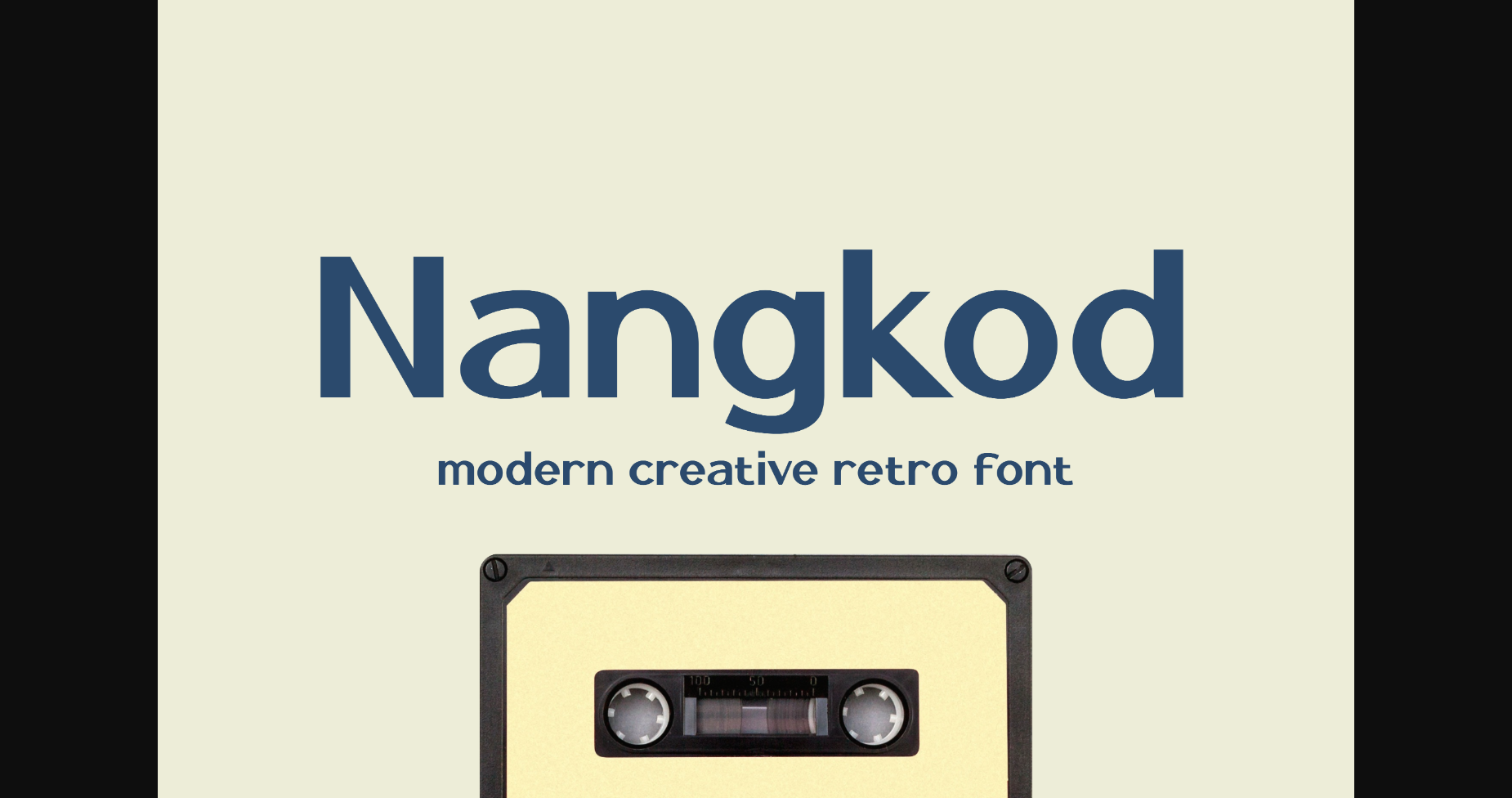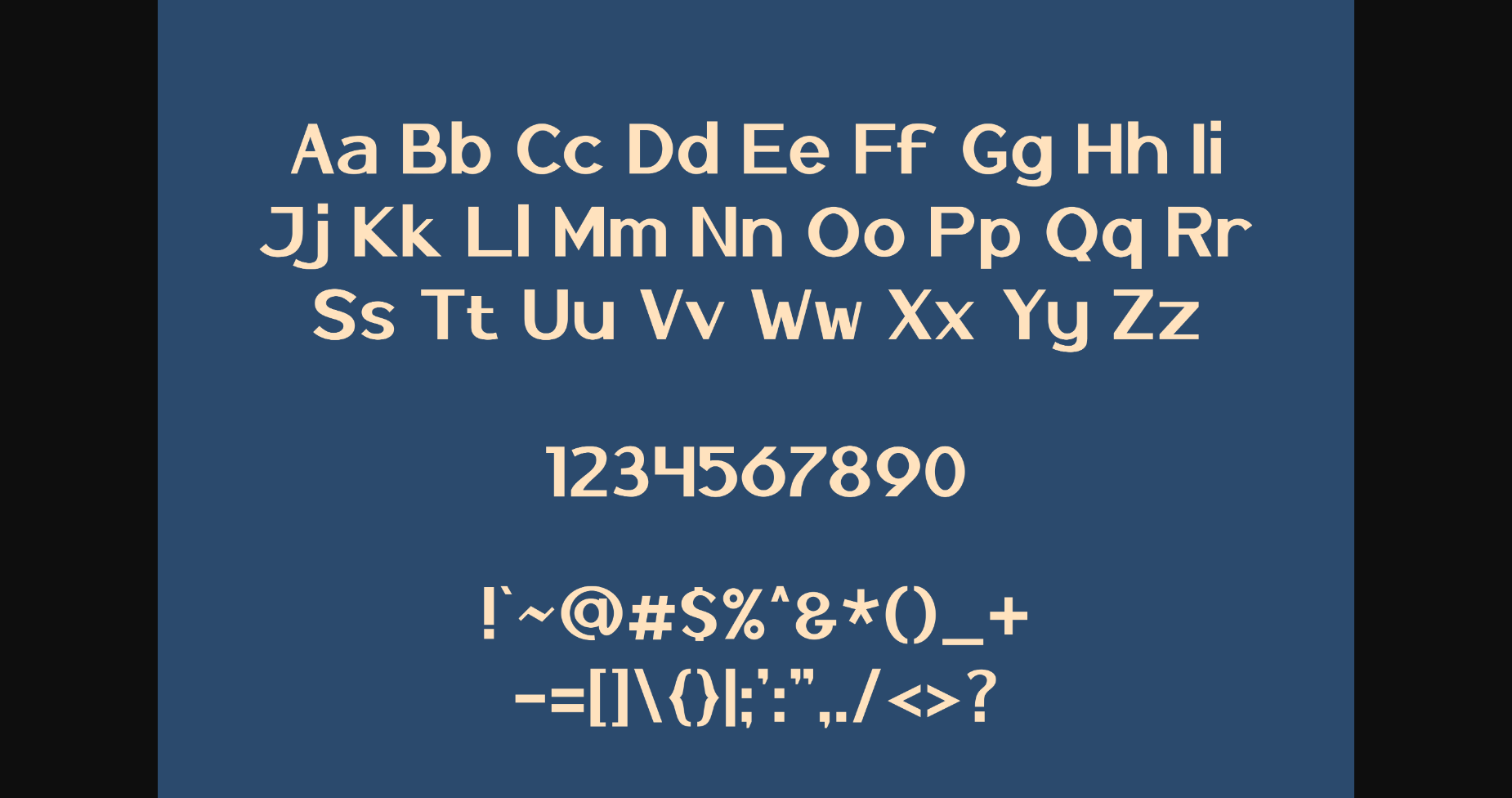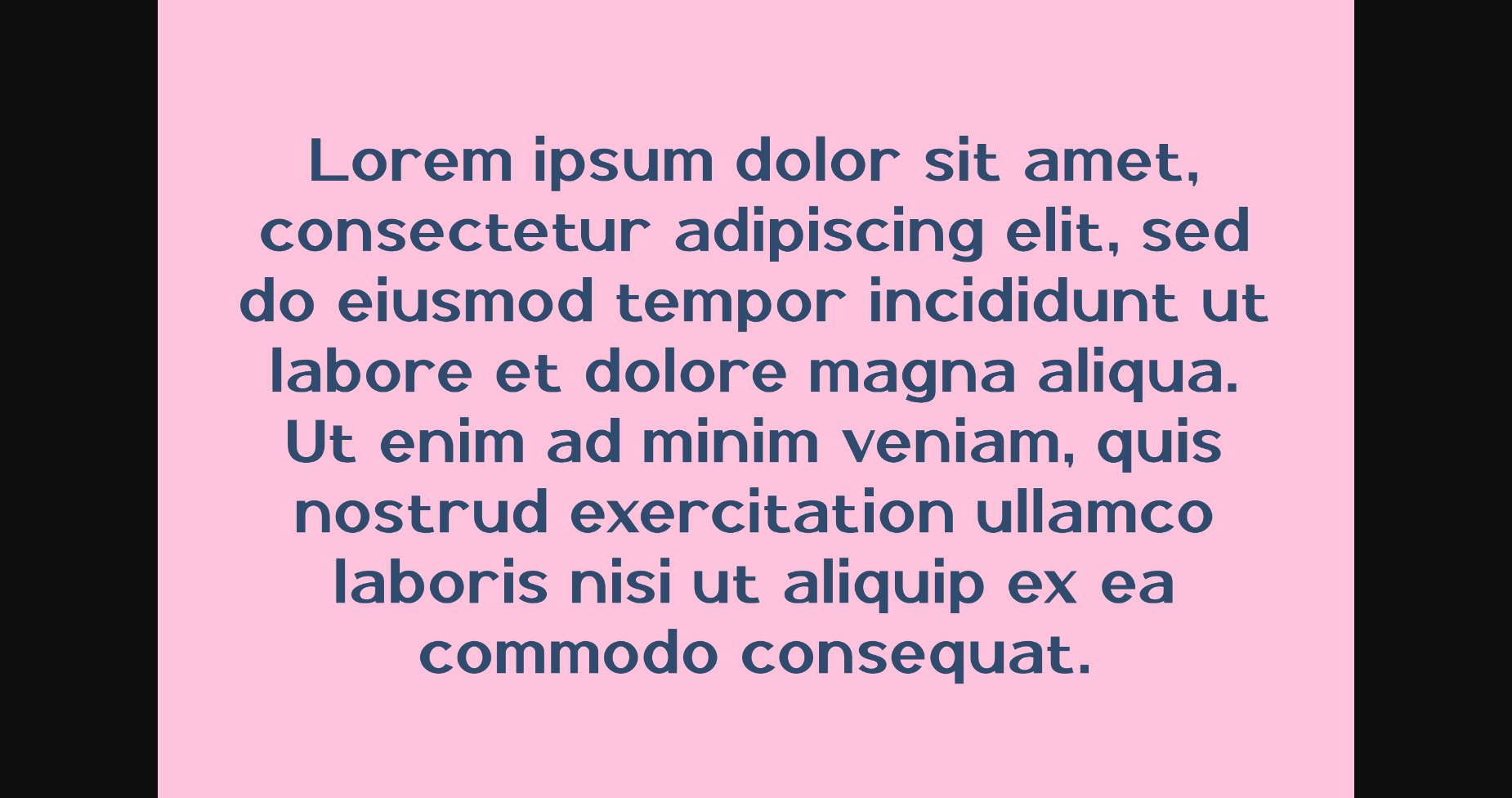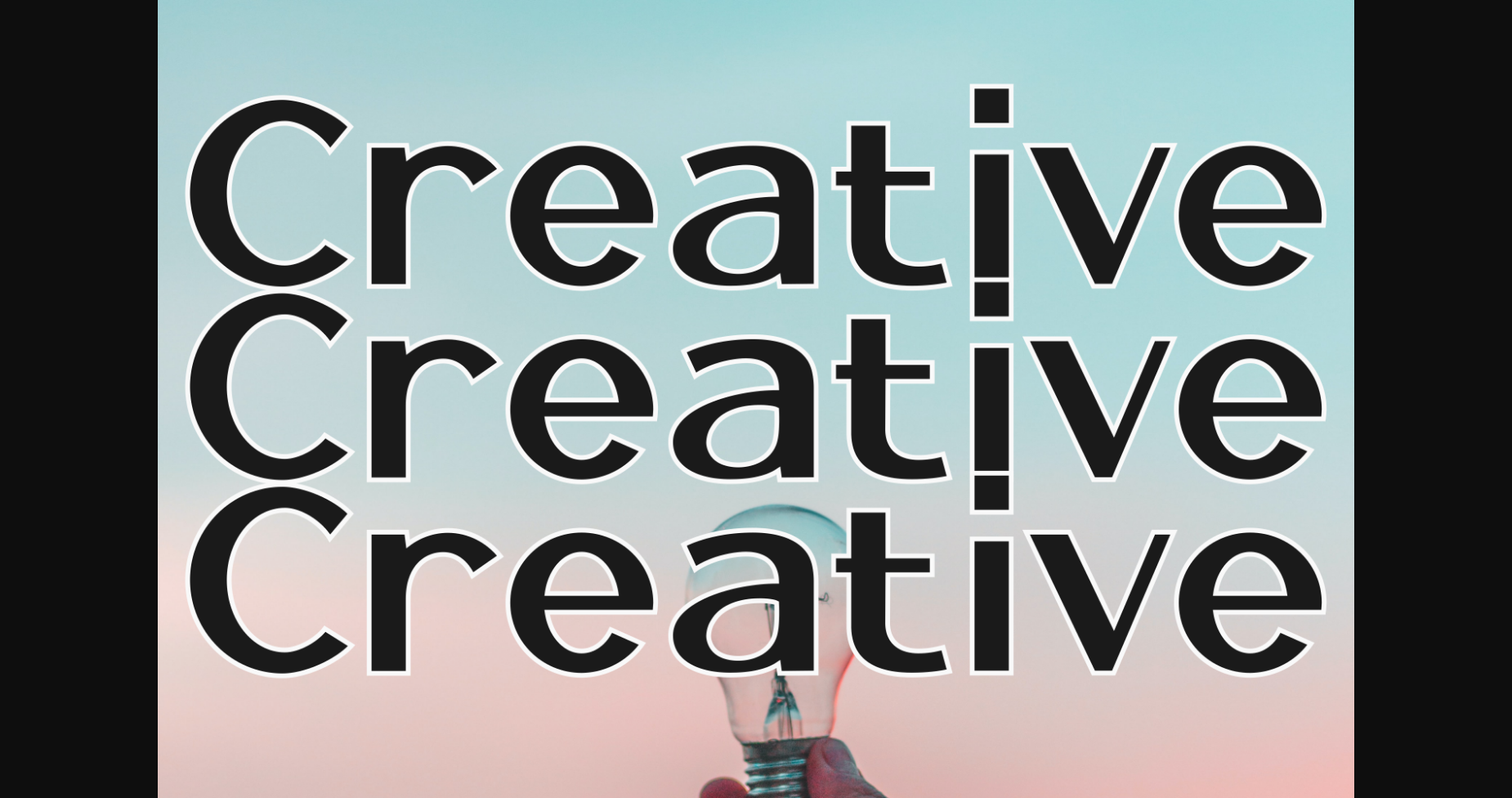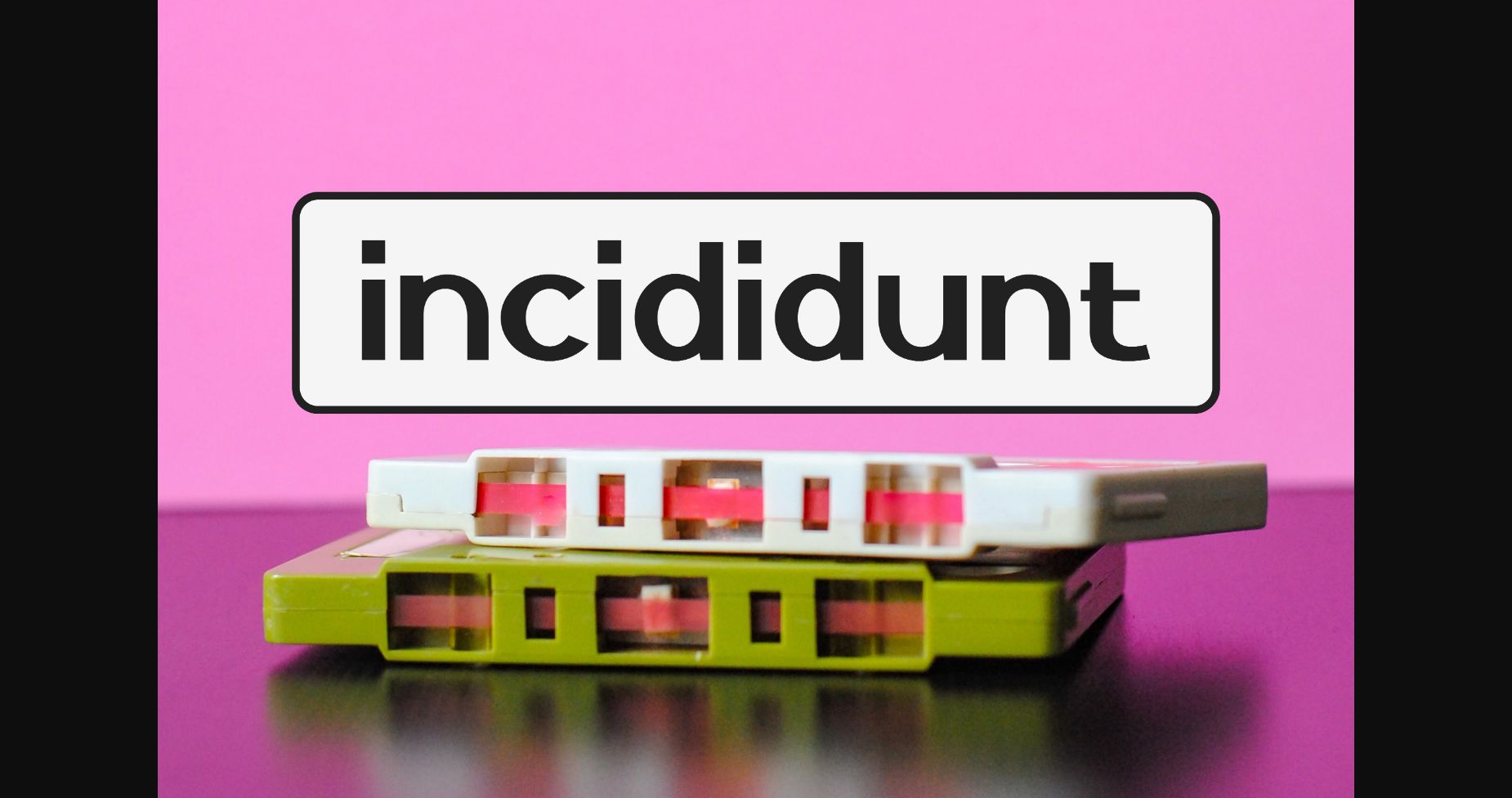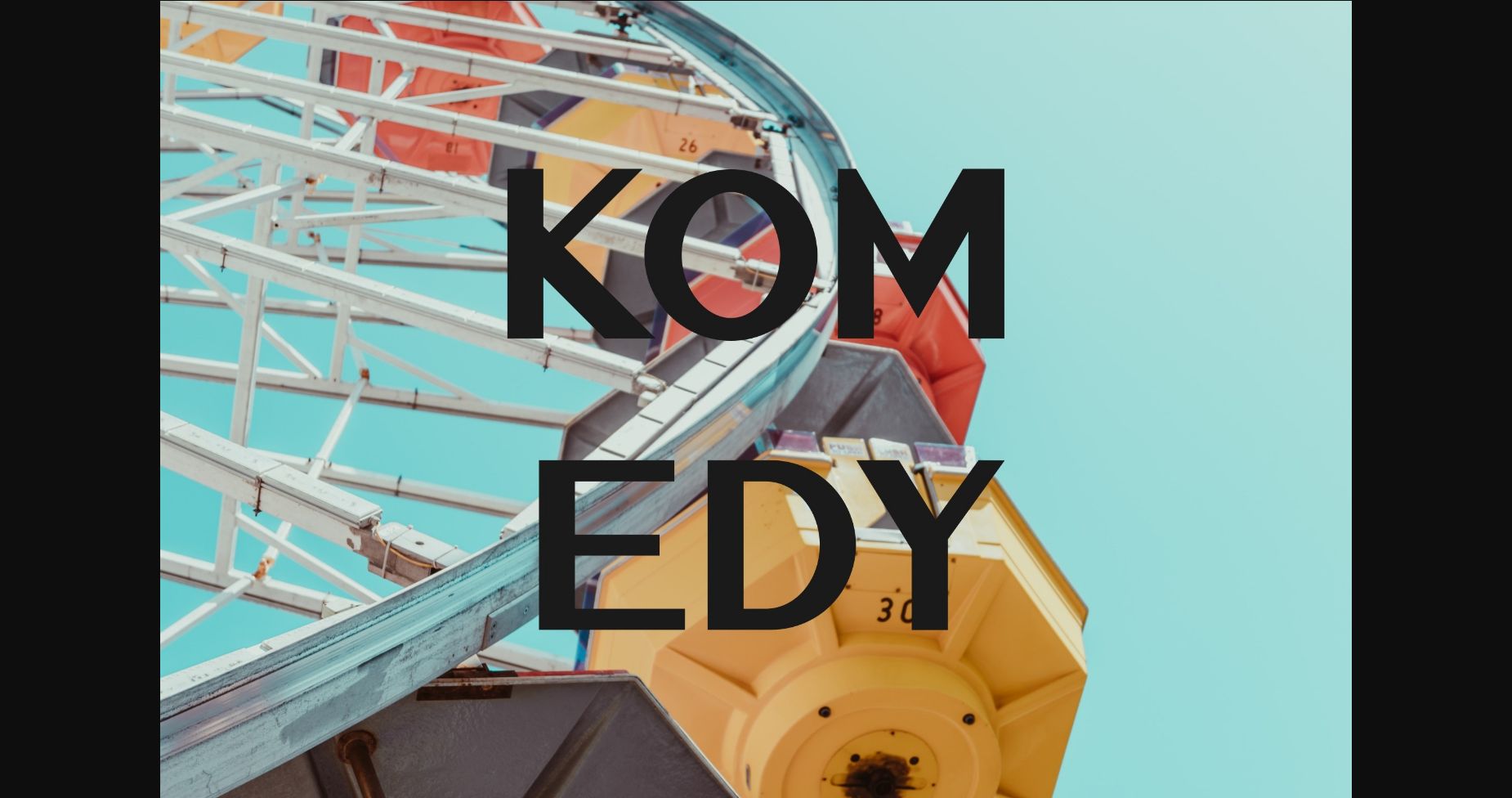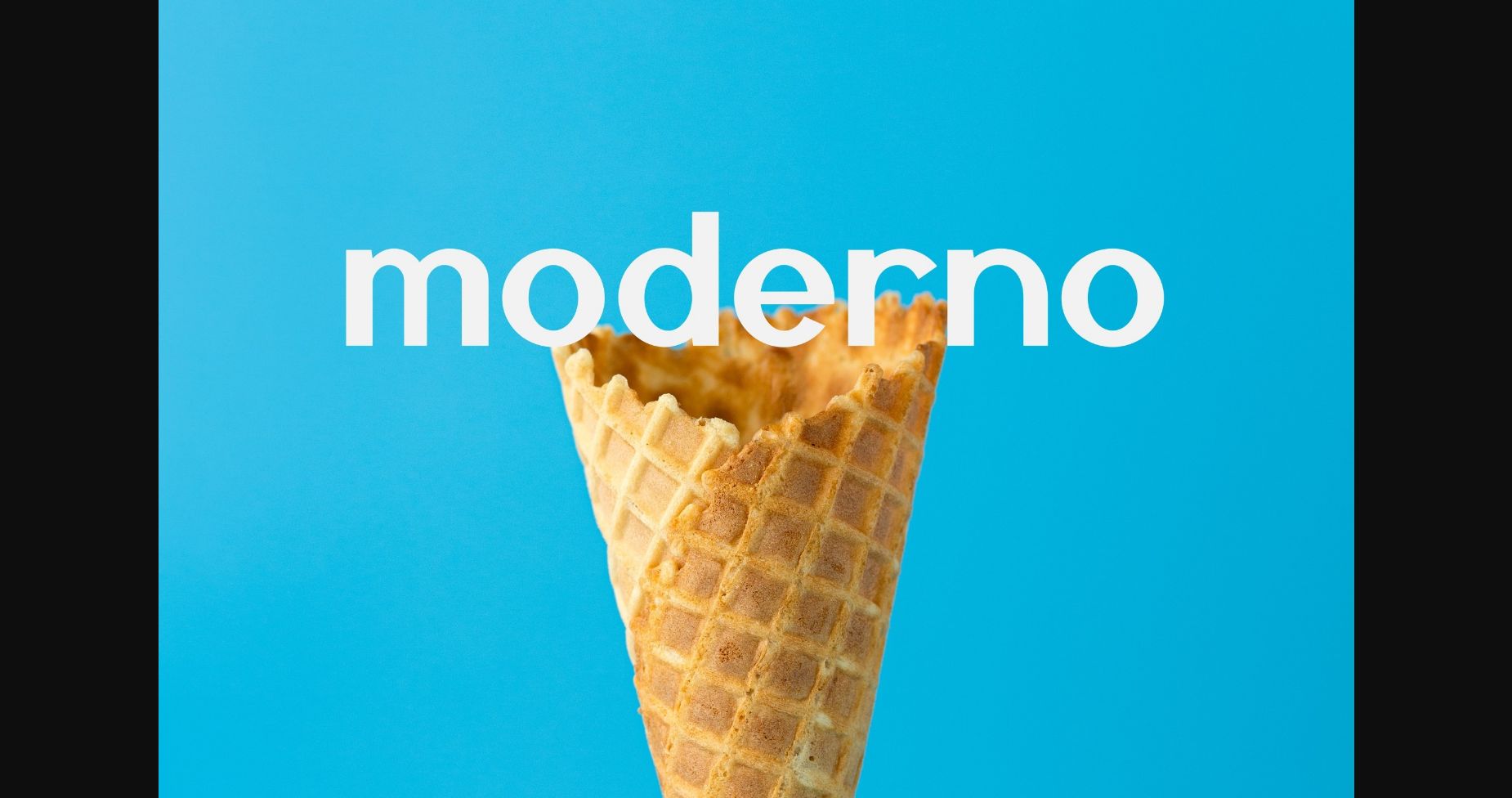
HomeSans Serif FontsNangkod Font Sans Serif Fonts Nangkod Font FacebookXPinterestWhatsApp 1 of 9 ... Nangkod Font Poster 2... Nangkod Font Poster 3... Nangkod Font Poster 4... Nangkod Font Poster 5... Nangkod Font Poster 6... Nangkod Font Poster 7... Nangkod Font Poster 8... Nangkod Font Poster 9... About Nangkod Font Nangkod is a vintage-styled and thick lettered sans serif font. You can use this font for logos, branding, titles, subtitles, and more. DOWNLOAD NOW People also explored Mugiwars Font Stone Proof Rushtian Font Pink Shine Font Andoly Cokie Font Sweet Honey Font Silkywalery Font Syamilla Marttine Font Klamoure Thin Font 286 0 TagsNangkodNangkod Font Previous articleLuciano FontNext articleMonolog Font LEAVE A REPLY Cancel reply Comment: Please enter your comment! Name:* Please enter your name here Email:* You have entered an incorrect email address! Please enter your email address here Website: Save my name, email, and website in this browser for the next time I comment. Personal Use Free Namskow Personal Use Free Read more about this font Evelyne Personal Use Free Read more about this font BD Fluke Personal Use Free Read more about this font Sweet Someday Personal Use Free Read more about this font BLOG How to Install and Use Fonts on Windows, macOS, and Web Projects How to Install and Use Fonts on Windows, macOS, and Web Projects Fonts are a crucial part of design and branding. Whether you’re designing a... 5 Fonts That Will Dominate Design Trends in 2026 Best Fonts for T-Shirt Design – Top 2025 Picks Free Fonts Risk: Why Free Fonts Can Be Dangerous for Designers